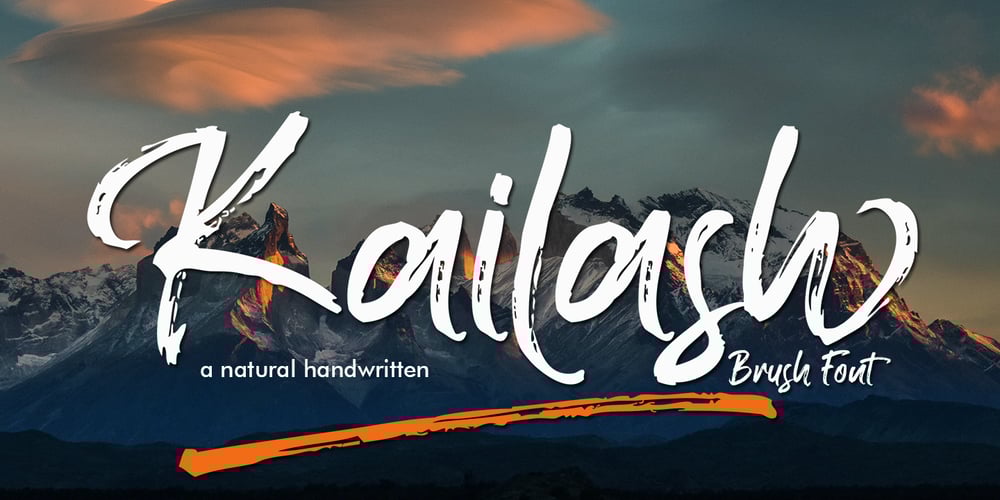
Kailash
Kailash font
Kailash Font Family was designed by Khaled and published by Akifatype. Kailash contains 1 styles and family package options. Kailash is a textured brush font, a contemporary approach to design, naturally handmade and with underscores. It also has alternatives and ligatures that make your design more attractive.Suitable for use in title design such as clothing, invitations, tittle books, stationery designs, quotes, branding, logos, greeting cards, t-shirts, packaging designs, posters and more.